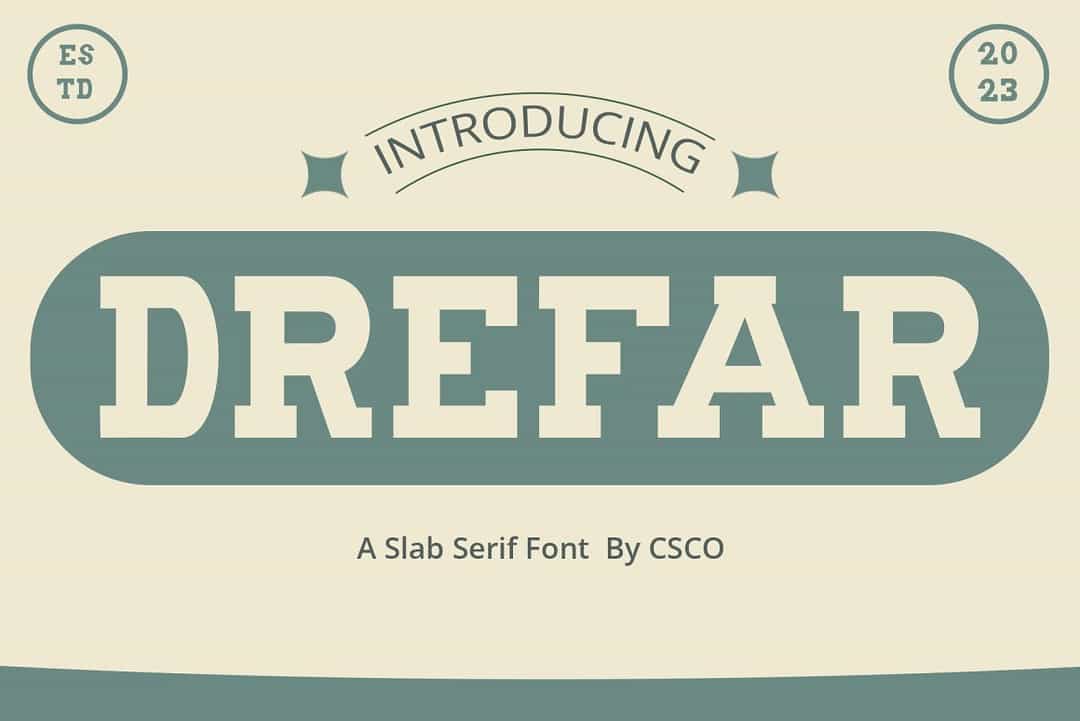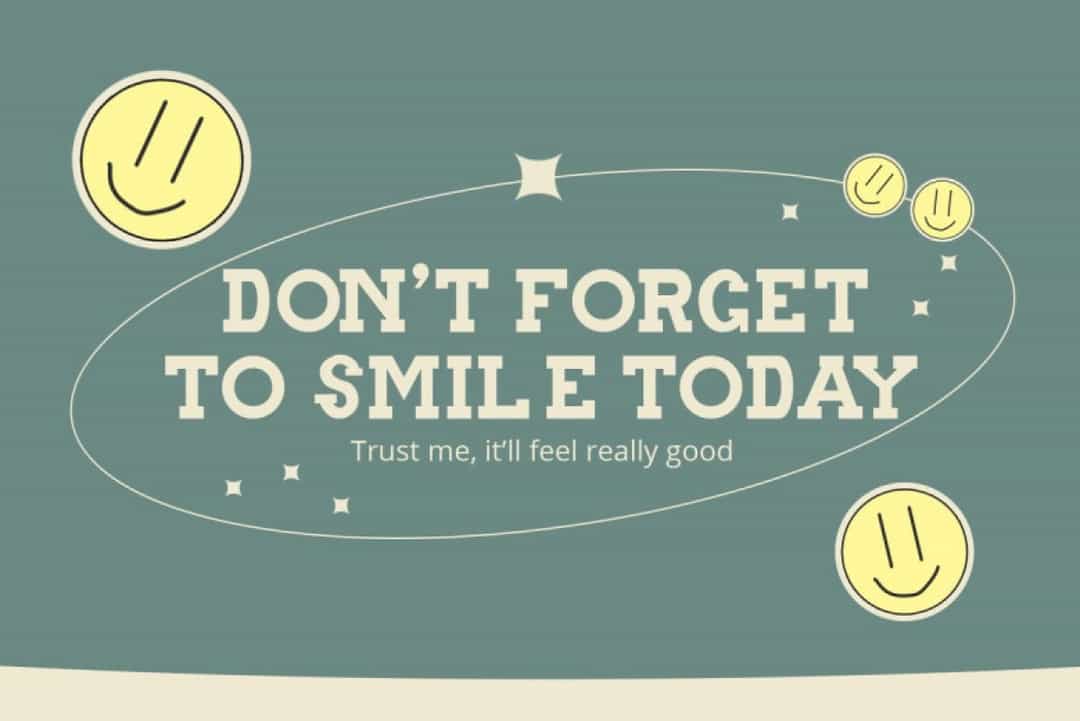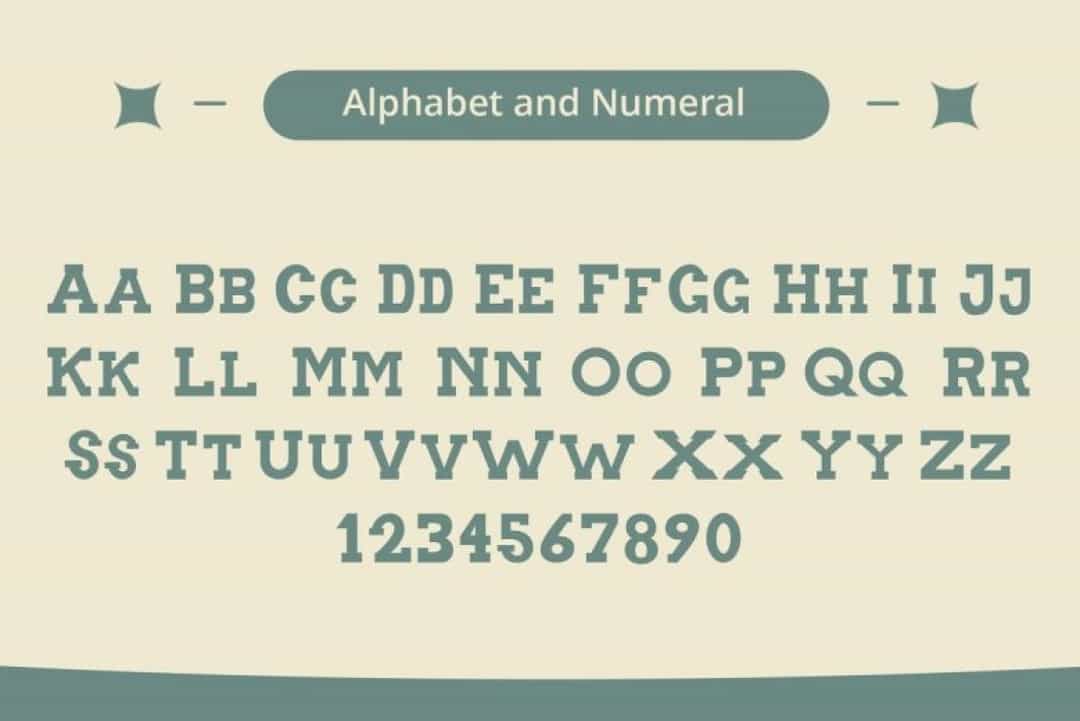
Drefar Slab Serif Font is an eye-catching font designed to bring masculine and casual elements together in one striking design, offering bold and confident typography for display purposes. Its versatile nature ensures your content makes a powerful impactful statement to viewers and readers of all kinds.